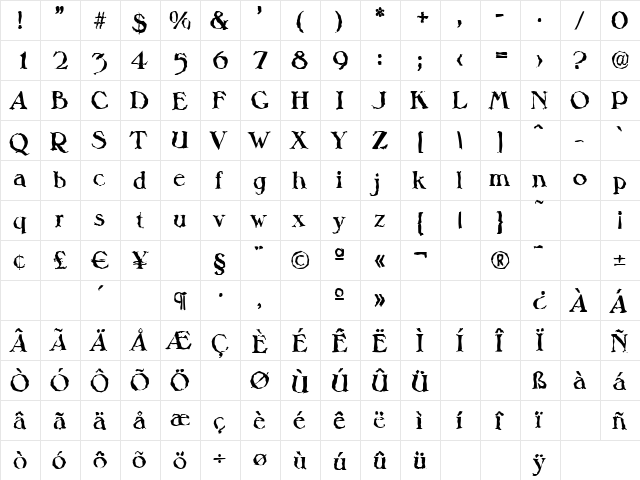
HenryBeckerRandom Bold Font Preview
HenryBeckerRandom Bold
HenryBeckerRandom Bold Font Details
Design Context for HenryBeckerRandom Typeface
HenryBeckerRandom is a composed and adaptable typeface that performs quietly and consistently across a wide range of design contexts. The heavy weight commands attention and anchors typographic hierarchies.